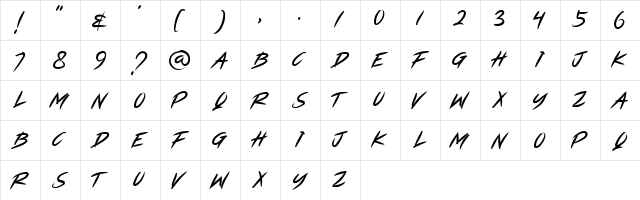
RIVERSTOCK Regular
| Designer | AMINMARIO 2020 |
Design Context for RIVERSTOCK Typeface
RIVERSTOCK is a composed and adaptable typeface that performs quietly and consistently across a wide range of design contexts.